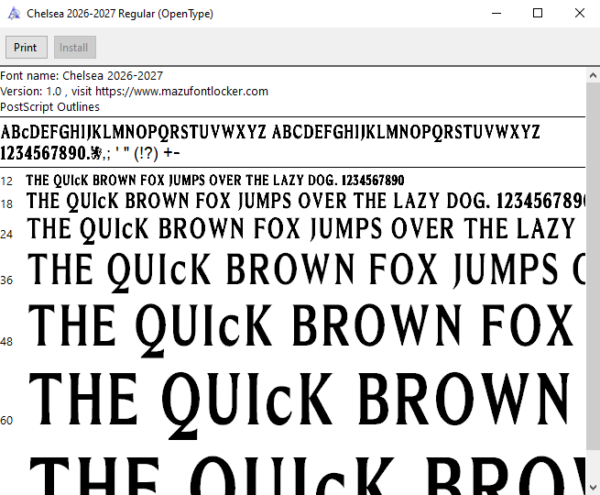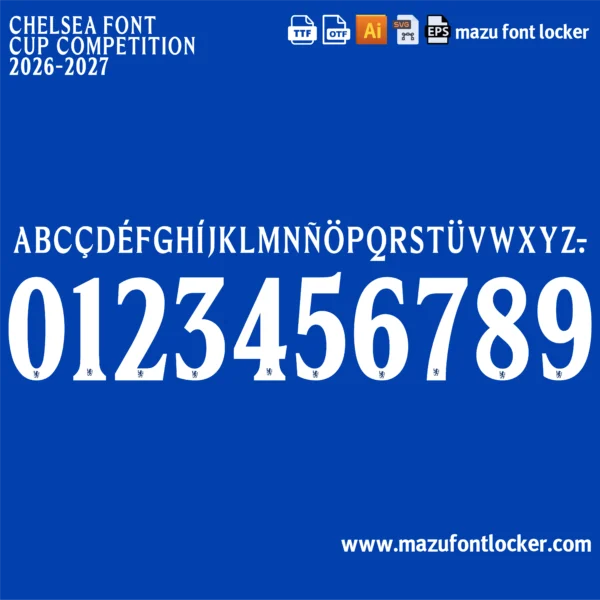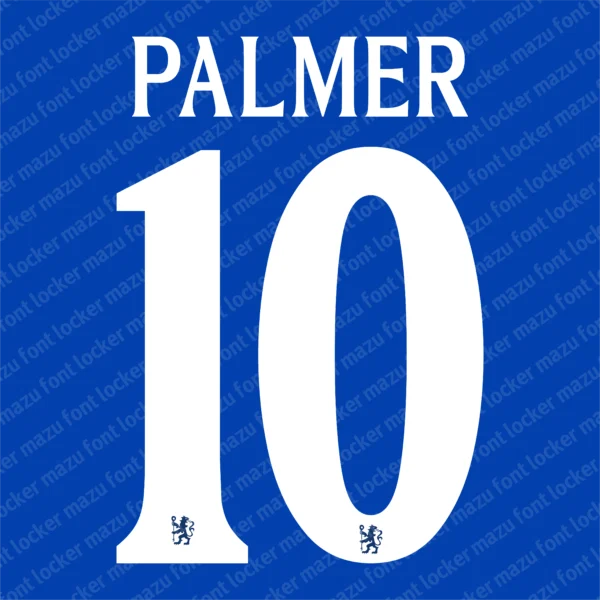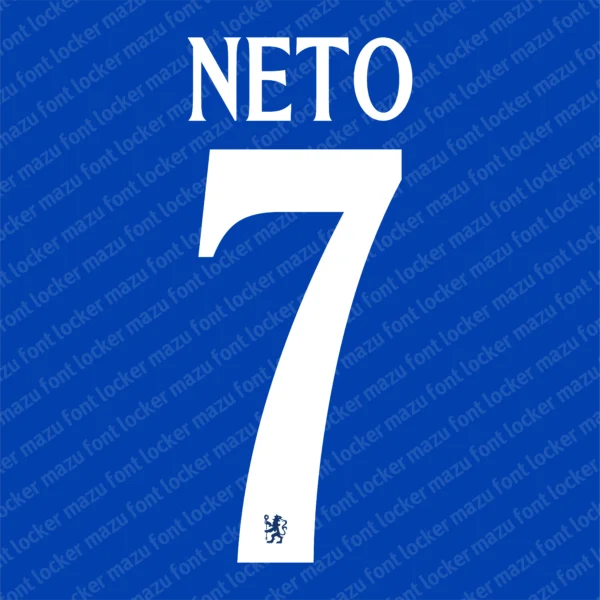
Chelsea 2026-2027 Font Vector – Epic Blues Legendary Masterpiece
Chelsea 2026-2027 Font Vector – Authentic Blues Typeface
The Chelsea 2026-2027 Font Vector is a premium typeface that accurately recreates the official match lettering worn by Chelsea FC during the 2026-2027 season. This high-quality vector font kit captures the bold, modern, and stylish typography that represents the ambition and rich history of this London club.
Why Choose Chelsea 2026-2027 Font Vector
This font stands out because of its sharp vector precision and strong club identity. Every letter and number is crafted to match the exact style used on the players’ shirts during the 2026-2027 campaign. Whether you are making realistic kit templates or exciting Blues content, the Chelsea 2026-2027 Font Vector gives your designs that authentic Chelsea look.
The letterforms in the Chelsea 2026-2027 Font Vector are tall, bold, and highly readable. The strokes have a strong, clean weight with excellent edge definition that looks powerful on the back of jerseys while maintaining modern English Premier League style and clarity.
• Full uppercase A–Z and numbers 0–9 in authentic Chelsea 2026-2027 style
• Special Chelsea crest glyph – Press the “:” (colon) symbol to insert the Chelsea logo